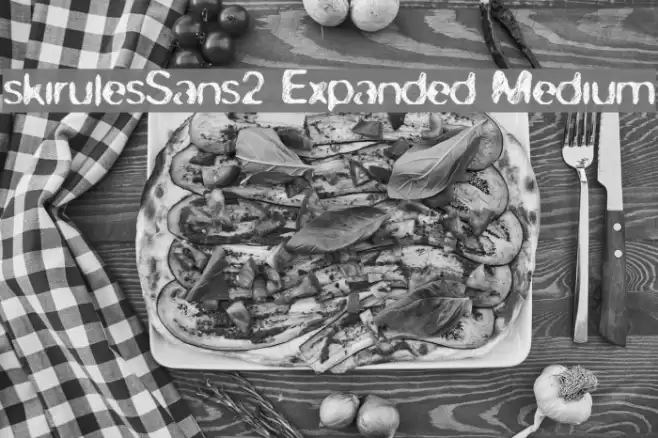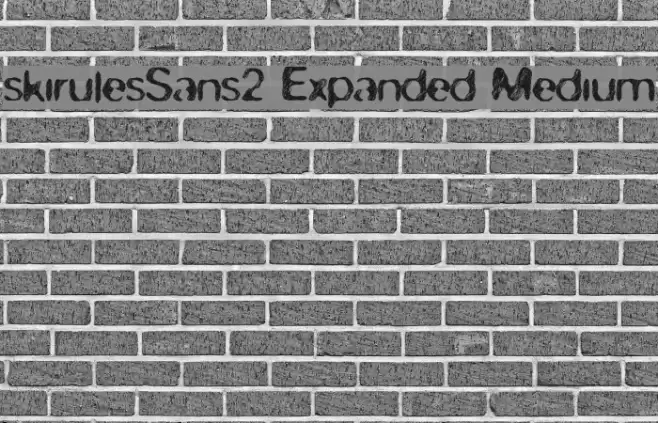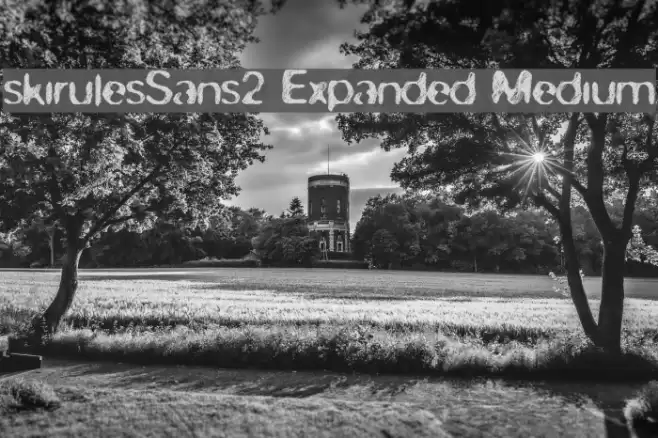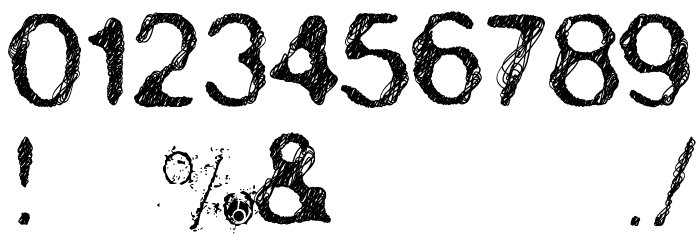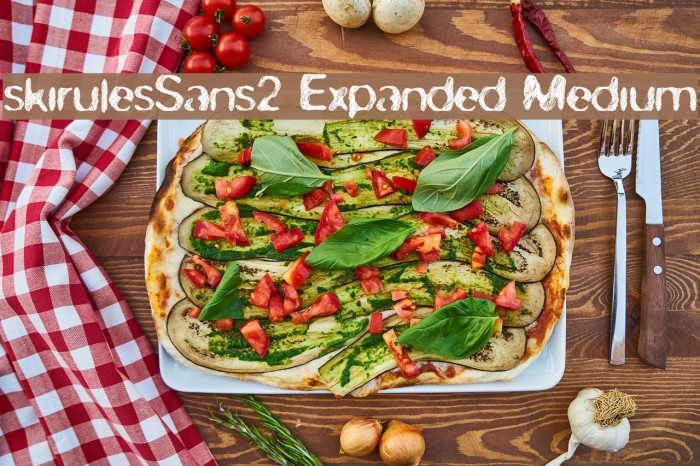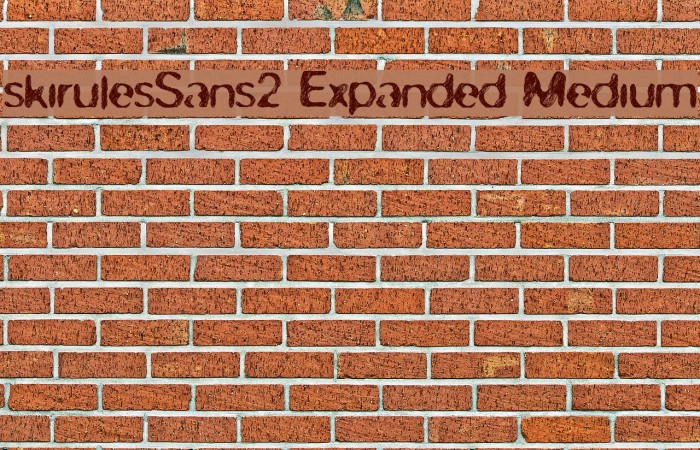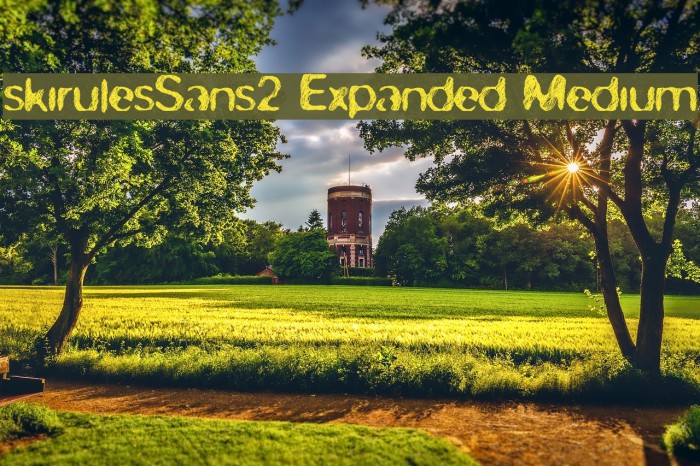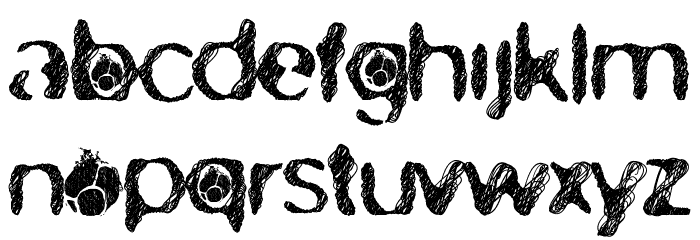
skirules-Sans2 Expanded Medium Font
skirules-Sans2 Expanded Medium Description
This font features a unique, textured design that resembles hand-drawn scribbles or doodles. Each character is filled with intricate, swirling patterns, giving it a playful and artistic appearance. The letters maintain a consistent width and height, ensuring readability despite the elaborate detailing. The font's style is both whimsical and bold, making it stand out in any design. It includes a full set of uppercase and lowercase letters, numbers, and a selection of special characters, all following the same decorative theme.
A playful, hand-drawn font with intricate, swirling patterns.
- Proposed Projects: Ideal for creative projects such as children's book covers, artistic posters, or branding for playful and imaginative businesses.
- Use Case: Headlines, Logos, Artistic projects